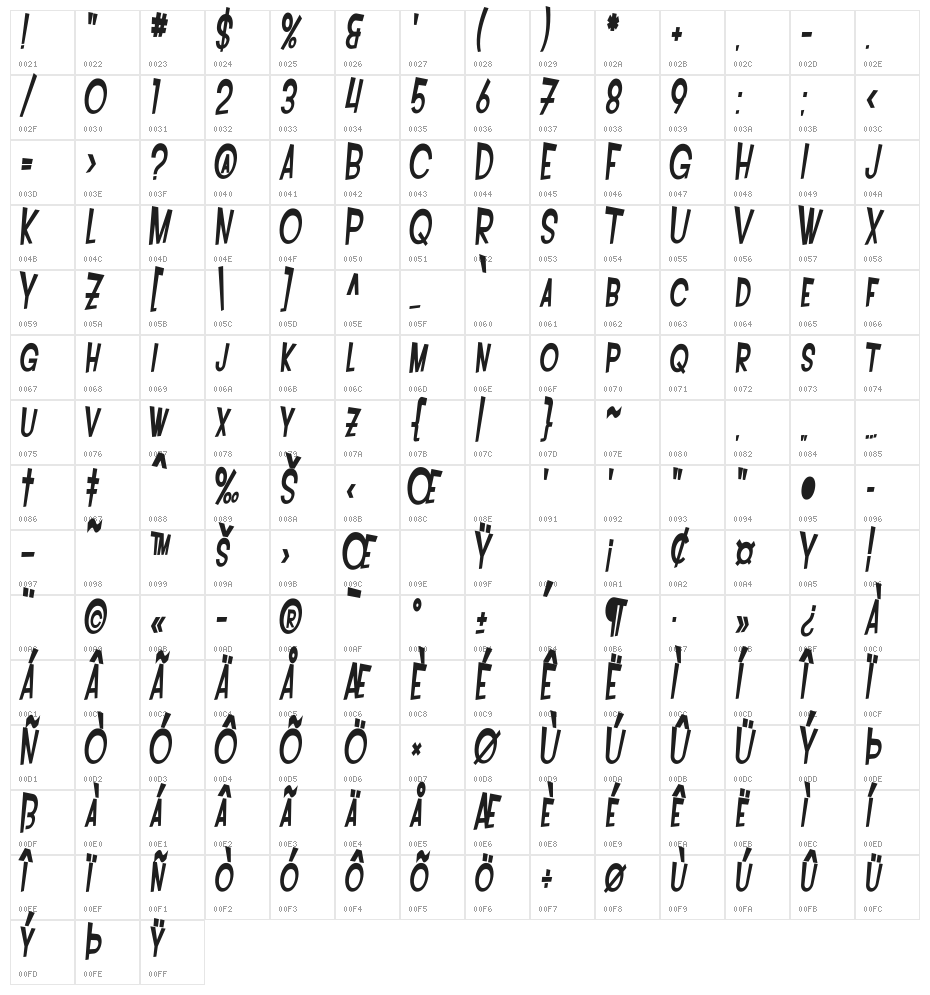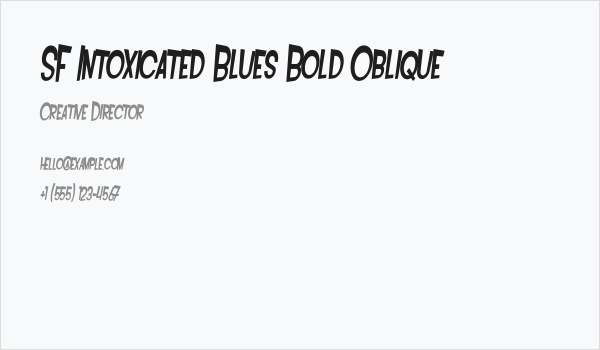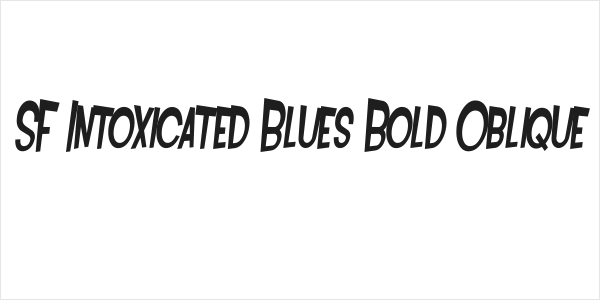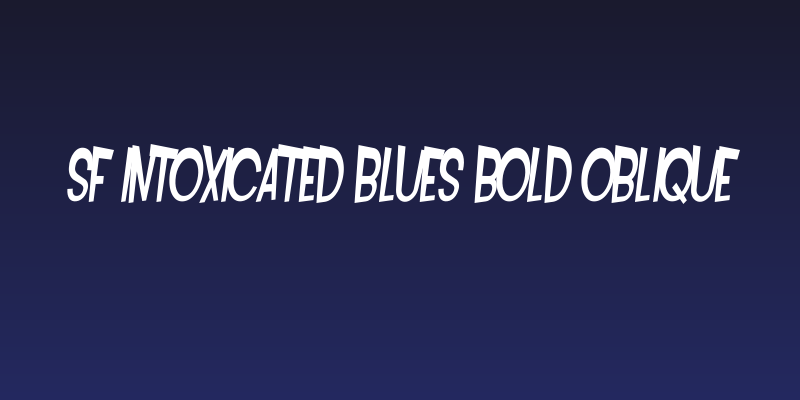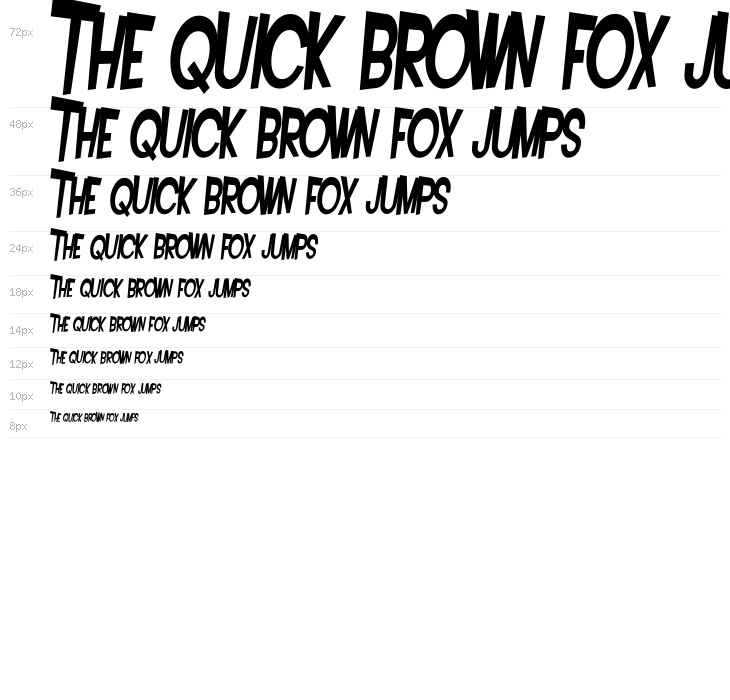
SF Intoxicated Blues Bold Oblique Font
SF Intoxicated Blues Bold Oblique Description
This font exhibits a bold and dynamic style with an oblique slant, giving it a sense of motion and energy. The characters are thick and robust, with a slight forward tilt that adds a modern and edgy feel. The uppercase and lowercase letters maintain a consistent weight, ensuring readability while still making a strong visual impact. The numerals and special characters are designed to match the boldness of the alphabet, providing a cohesive look across all elements. The font's overall appearance is striking and attention-grabbing, making it ideal for projects that require a bold statement.
| Proposed Projects | Ideal for posters, headlines, branding, and any design needing a bold, energetic look. |